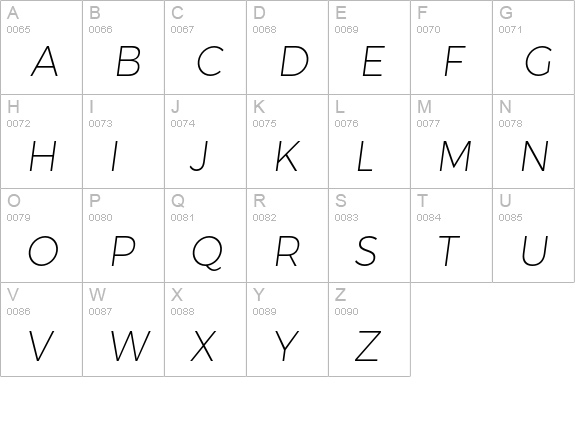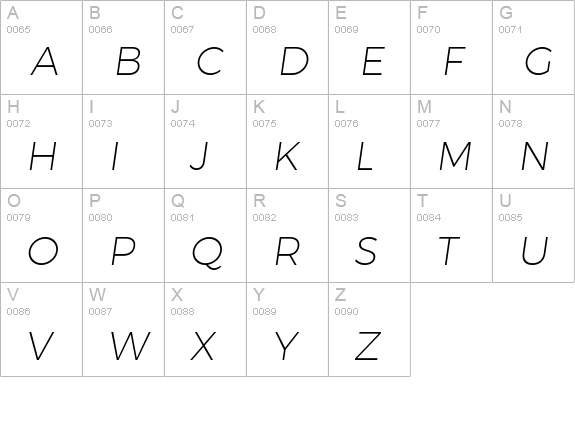
Trueno UltraLight Italic Font Details
Trueno UltraLight Italic is an airy, ultra-refined, italic variant in the Trueno typeface family \xE2\x80\x94 well suited to minimalist headlines and refined display use.
Trueno UltraLight Italic font is an exquisite and elegant typeface that effortlessly combines a delicate touch with a sense of modernity. Its slender and graceful letterforms exude an air of sophistication, making it perfect for projects that demand a refined and stylish aesthetic. The UltraLight weight of this font adds an ethereal quality to any design, giving it a sense of lightness and delicacy. Its italicized style adds a subtle inclination, adding a touch of elegance to the overall composition. Whether it's used for headings, titles, or body text, Trueno UltraLight Italic font brings a unique and harmonious blend of form and function to any typographic project. One of the most remarkable aspects of Trueno UltraLight Italic font is that it is freely available to download at FontsMarket.com. This means that designers, creatives, and typography enthusiasts can effortlessly access this stunning typeface without any cost. Its availability for free download further emphasizes its accessibility and versatility, making it an excellent choice for a wide range of projects. Trueno UltraLight Italic font is a true gem in the world of typography, combining elegance, versatility, and accessibility in one package. Its delicate yet impactful design is guaranteed to make a lasting impression on any viewer. So why wait? Head over to FontsMarket.com and download Trueno UltraLight Italic font today to elevate your design projects to new heights.